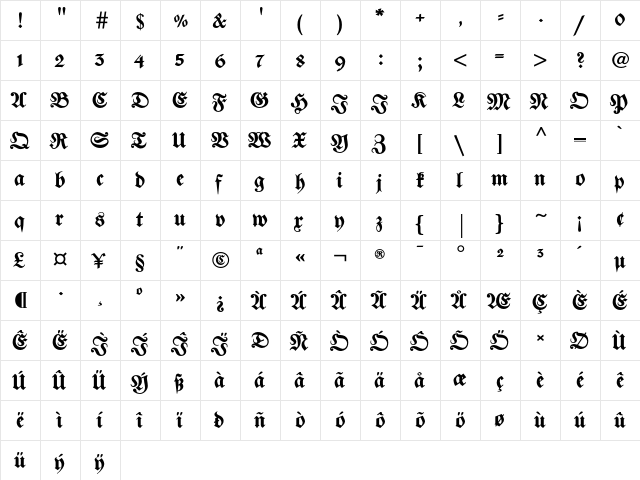
JustusFrakturEF Bold
Design Context for JustusFrakturEF Typeface
JustusFrakturEF channels the dramatic heritage of Fraktur and Gothic scripts, bringing a sense of historical gravitas to any design. Its bold stroke weight gives it real presence on the page.
A natural fit for music packaging, gothic editorial design, and any project that needs historical weight.
Font Pairing: Pair with a clean neutral sans-serif for body copy to let JustusFrakturEF's character lead without overwhelming the composition.
Pro Tip: Reserve JustusFrakturEF for display and logo use — pair it with a clean sans-serif for body copy to prevent the composition from feeling oppressive.